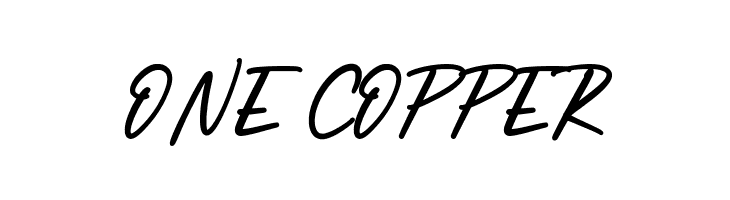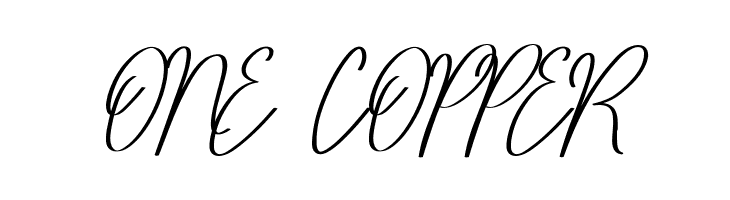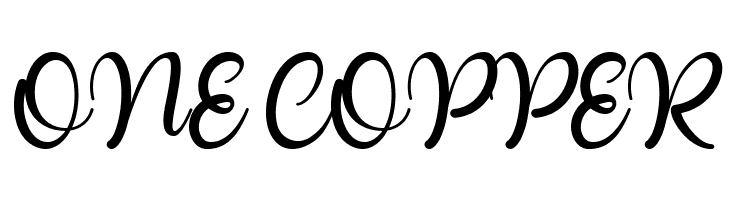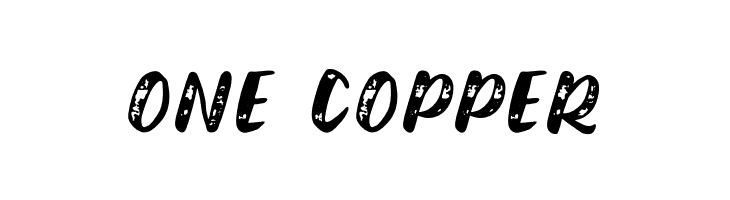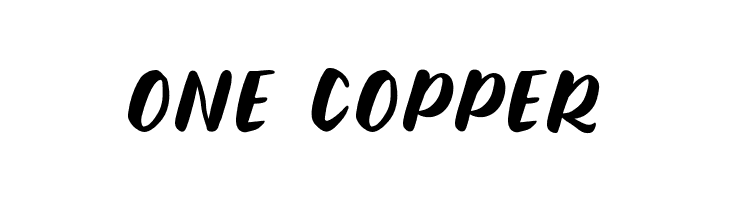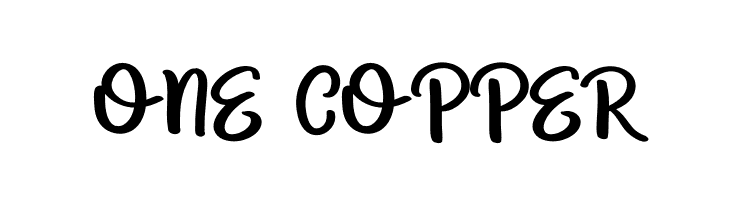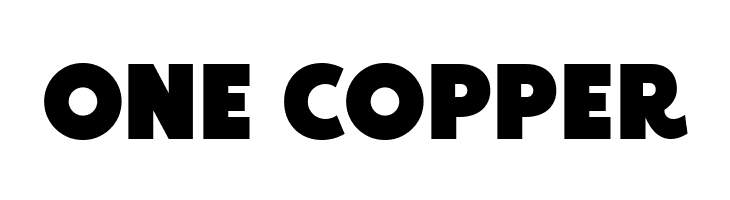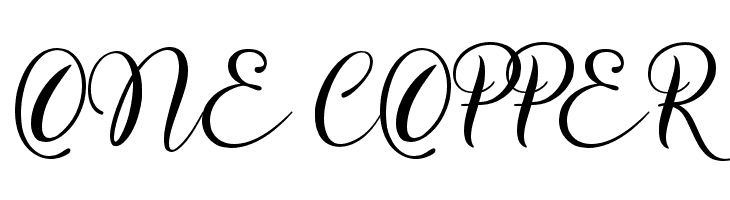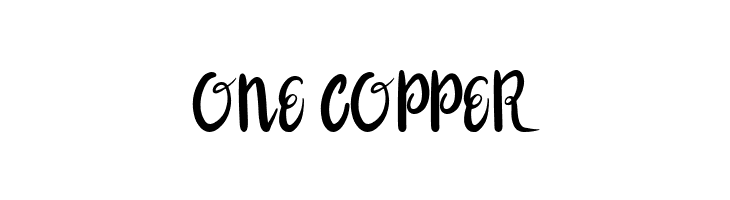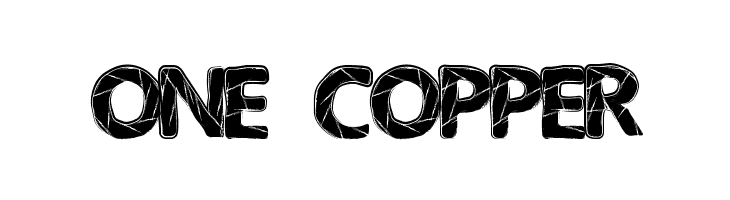
A bold, geometric font with strong, uniform strokes and a modern yet vintage appeal.
A bold, playful script font with dynamic and flowing letterforms.
A flowing, cursive font with elegant, sweeping strokes and a handwritten appearance.
A cursive, handwritten script font with elegant, flowing strokes.
A flowing, cursive script font with smooth, rounded edges and consistent stroke width.
A casual, flowing handwritten font with smooth, cursive strokes.
An elegant script font with flowing, cursive letters and ornate flourishes.
A playful and dynamic script font with bold, fluid letterforms.
A bold, geometric font with strong, angular lines and a modern aesthetic.
A bold, geometric font with strong, angular lines and a blocky appearance.
A bold, geometric, and oblique typeface with a futuristic and industrial style.
A bold, geometric typeface with strong, angular lines and a constructivist feel.
Bold, oblique font with geometric shapes and angular lines.
A bold, geometric font with a modern, blocky design.
A bold, geometric font with an oblique slant and sharp angles.
A bold, oblique font with a geometric, industrial style.
A bold, geometric font with sharp edges and a modern industrial style.
A bold, geometric oblique font with sharp angles and a modern aesthetic.
A bold, geometric font with sharp edges and a modern, industrial style.
A bold, geometric, and oblique font with sharp angles and a modern look.
A bold, geometric font with a modern, industrial aesthetic.
A bold, geometric oblique font with sharp angles and clean lines.
A decorative, gear-like font with an industrial and mechanical aesthetic.
An ornate and decorative font with intricate embellishments.
A decorative, industrial-themed design with gear-like motifs around letters.
A bold, expressive script font with fluid, interconnected strokes.
A bold, textured brush script with a handcrafted, vintage feel.
A bold, three-dimensional font with a dynamic and playful style.
A bold, geometric font with strong, modern letterforms.
A modern, geometric font with clean lines and balanced spacing.
An elegant and flowing script font with dynamic, cursive letterforms.
An elegant, flowing script font with graceful curves and ornate flourishes.
A bold, playful handwritten font with rounded, dynamic strokes.
A bold, playful font with rounded strokes and a graffiti-like style.